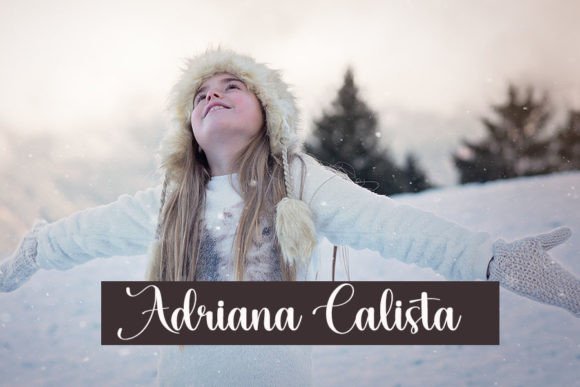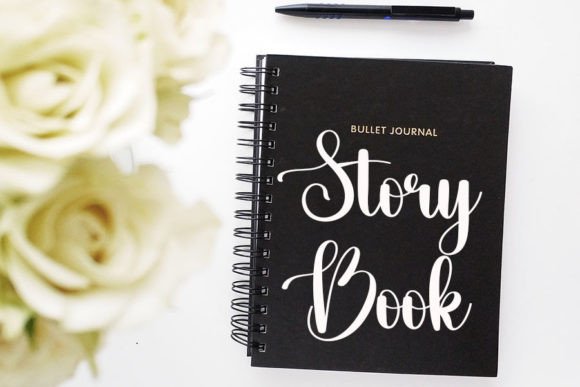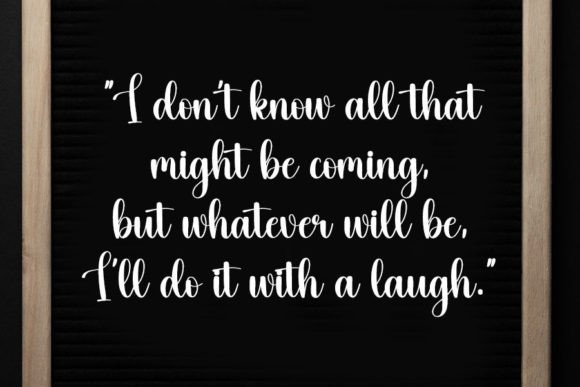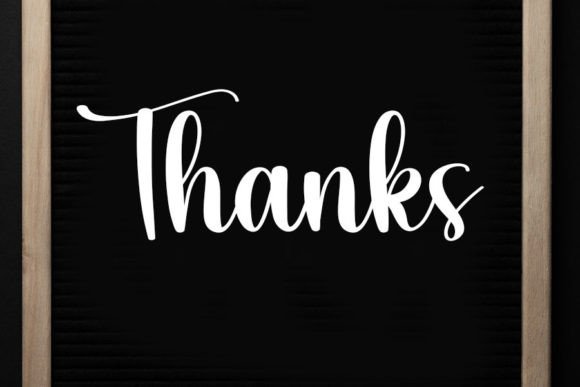
Introducing Caption Font: A Delicate Handwritten Style for Unique Designs
Are you a designer or crafter looking for a font that adds a touch of elegance and whimsy to your projects? Look no further than Caption Font, a beautiful, delicate handwritten font carefully crafted for a cool and unique design. In this article, we’ll dive into the world of Caption Font, exploring its features, uses, and benefits, as well as provide tips and inspiration for incorporating it into your work.
What is Caption Font?
Caption Font is a carefully crafted, handwritten font designed to bring a touch of sophistication and charm to your designs. With its delicate lines and unique character, this font is perfect for adding a personal touch to a wide range of projects, from letters and invitations to food products, titles, and more.
Key Features of Caption Font
- Delicate Handwritten Style: Caption Font boasts a beautiful, handwritten style that adds a touch of elegance and whimsy to any design.
- Unique Character: With its carefully crafted lines and curves, this font has a unique character that sets it apart from other fonts.
- Versatile: Caption Font can be used for a wide range of projects, from letters and invitations to food products, titles, and more.
- Easy to Read: Despite its delicate nature, Caption Font is easy to read, making it perfect for body text and headlines.
Uses of Caption Font
Caption Font is a versatile font that can be used in a variety of contexts, including:
- Invitations: Add a touch of elegance to your wedding invitations, birthday party invites, or other special occasion cards.
- Food Products: Use Caption Font to add a personal touch to your food labels, packaging, or branding.
- Titles and Headlines: Add a touch of whimsy to your titles and headlines with Caption Font.
- Lettering and Calligraphy: Use Caption Font as a base for your lettering and calligraphy projects.
Benefits of Using Caption Font
So why choose Caption Font for your next project? Here are just a few benefits:
- Adds a Personal Touch: Caption Font adds a personal touch to your designs, making them stand out from the crowd.
- Unique and Eye-Catching: With its delicate lines and unique character, Caption Font is sure to grab attention.
- Easy to Use: Caption Font is easy to use and pairs well with a variety of other fonts.
Tips for Using Caption Font
Here are a few tips for incorporating Caption Font into your designs:
- Pair with Other Fonts: Experiment with pairing Caption Font with other fonts to create a unique and eye-catching combination.
- Use for Headlines and Titles: Use Caption Font for headlines and titles to add a touch of whimsy and elegance.
Inspiration and Examples
Still not sure how to use Caption Font? Here are a few examples and inspiration to get you started:
- Wedding Invitations: Use Caption Font to add a touch of elegance to your wedding invitations.
- Food Packaging: Use Caption Font to add a personal touch to your food labels and packaging.
- Typography Posters: Use Caption Font to create beautiful typography posters.
In conclusion, Caption Font is a beautiful, delicate handwritten font that adds a touch of elegance and whimsy to any design. With its unique character, versatility, and ease of use, it’s perfect for designers and crafters looking to add a personal touch to their projects. Whether you’re creating invitations, food products, titles, or more, Caption Font is sure to inspire and elevate your designs.